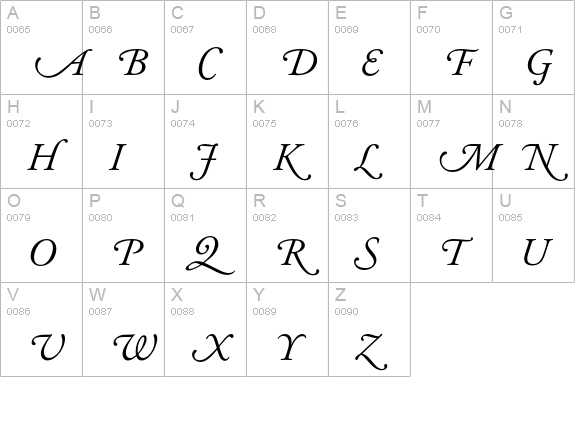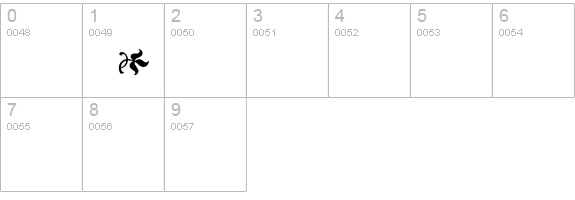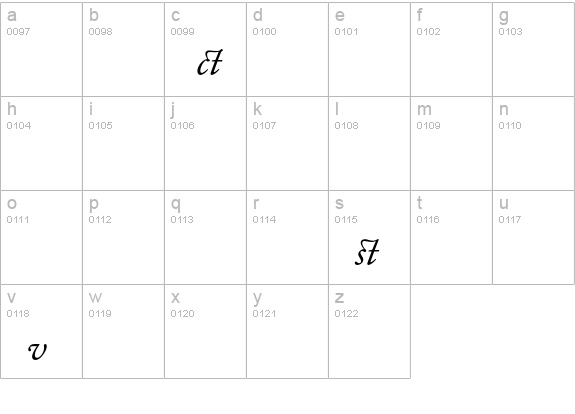
Adobe Garamond Italic Alternate Font Details
Adobe Garamond Italic Alternate is a distinctive, italic variant in the Adobe typeface family \xE2\x80\x94 well suited to design and typography projects.
Adobe Garamond Italic Alternate is a beautifully crafted font that exudes elegance and sophistication. Its slanted, italic design adds a touch of flair and style to any project, making it perfect for use in editorial layouts, branding, and creative designs. The alternate characters in this font provide additional options for creating unique and eye-catching typography. What makes Adobe Garamond Italic Alternate even more appealing is that it is available for free download at FontsMarket.com. This means that you can access this premium font without any cost, allowing you to elevate your designs without breaking the bank. Whether you're a professional designer looking for a versatile typeface or a hobbyist searching for a high-quality font, Adobe Garamond Italic Alternate is sure to impress with its timeless appeal and versatility. Download it today and start adding a touch of class to your projects!